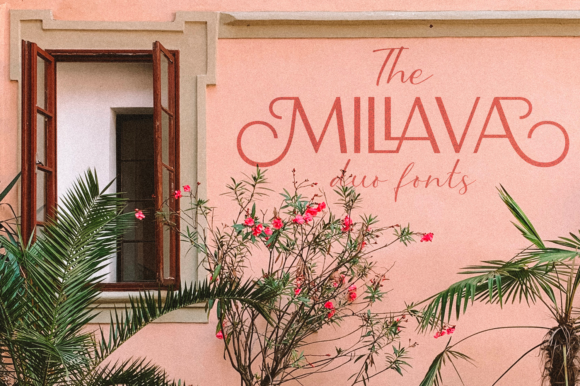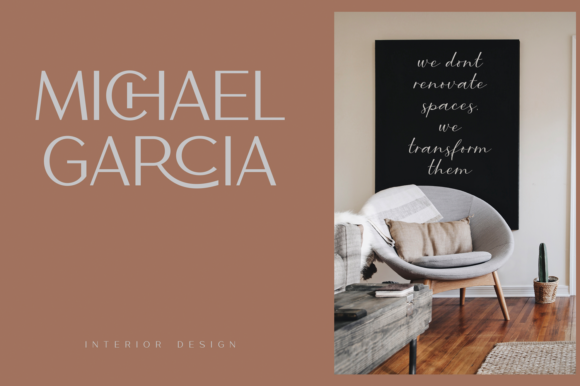
The Millava Font
db-ku.com - Script & Handwritten -- The Millava is a stunning and comprehensive duo font (script and sans serif), ideal for giving your projects a branded but friendly feel. The two included styles can be combined together perfectly but are also beautiful on their own.